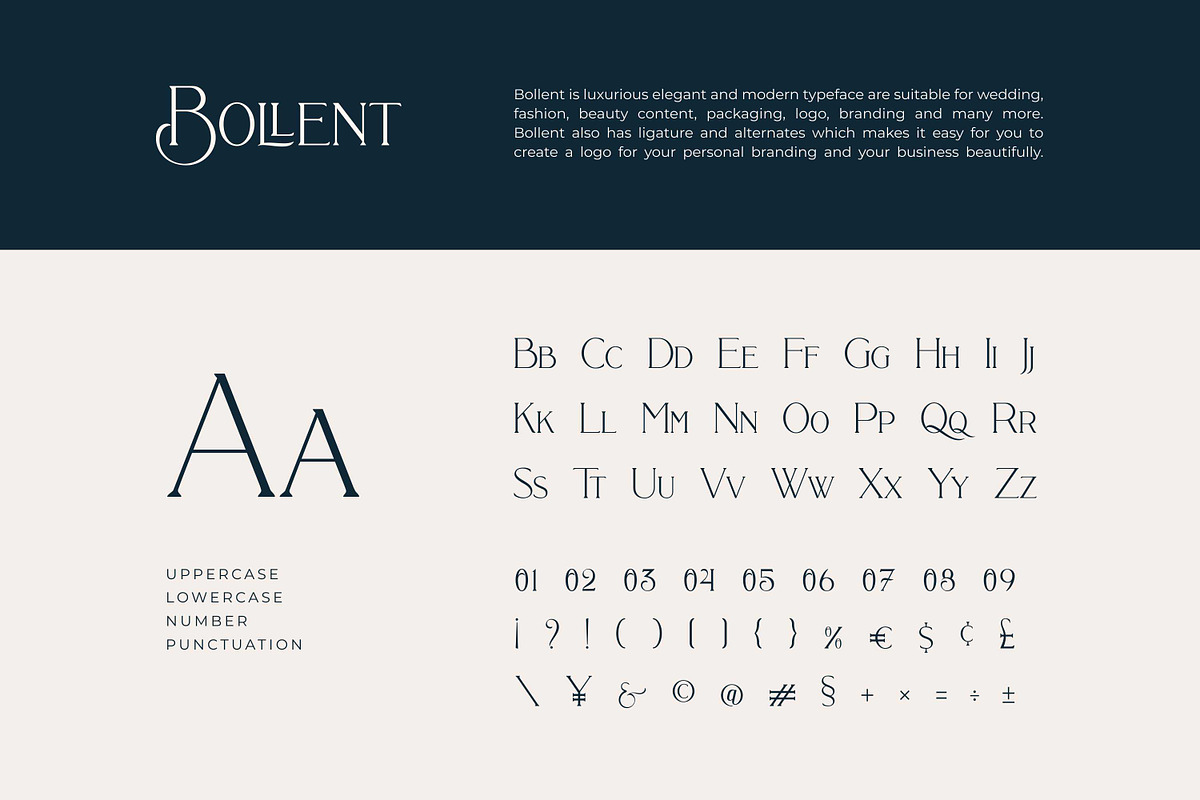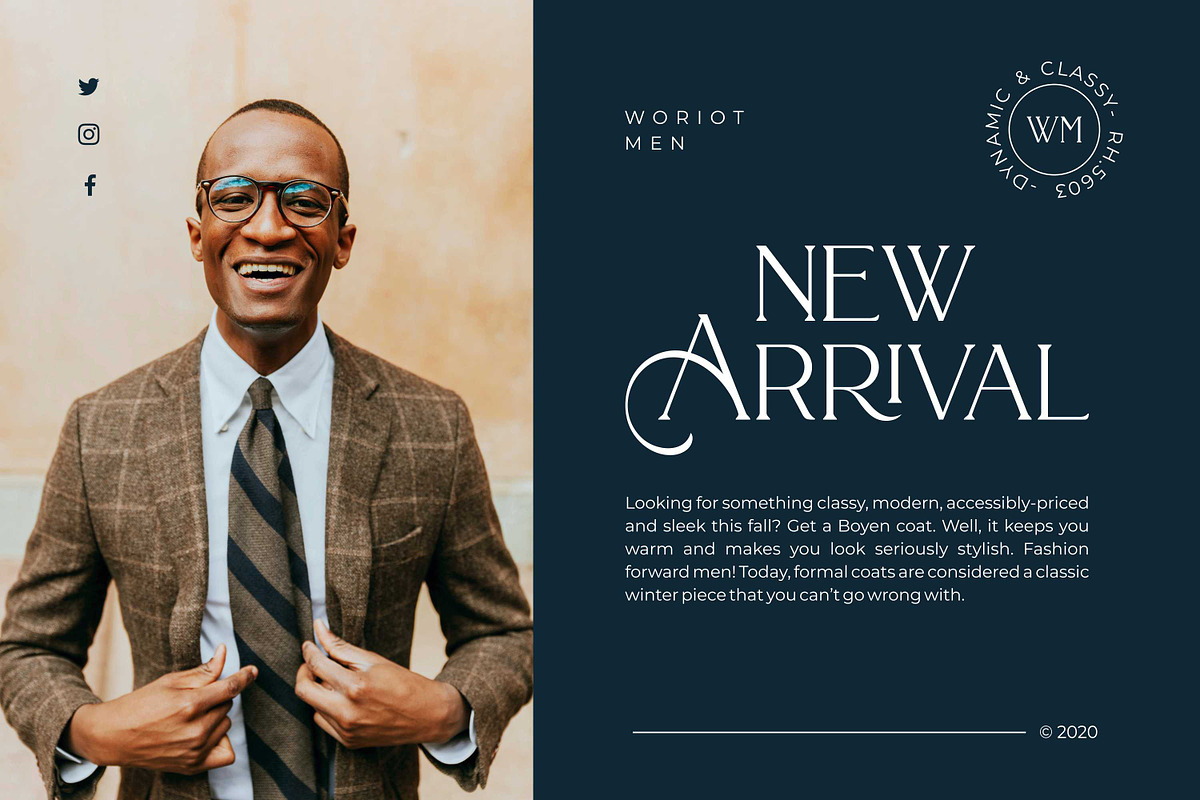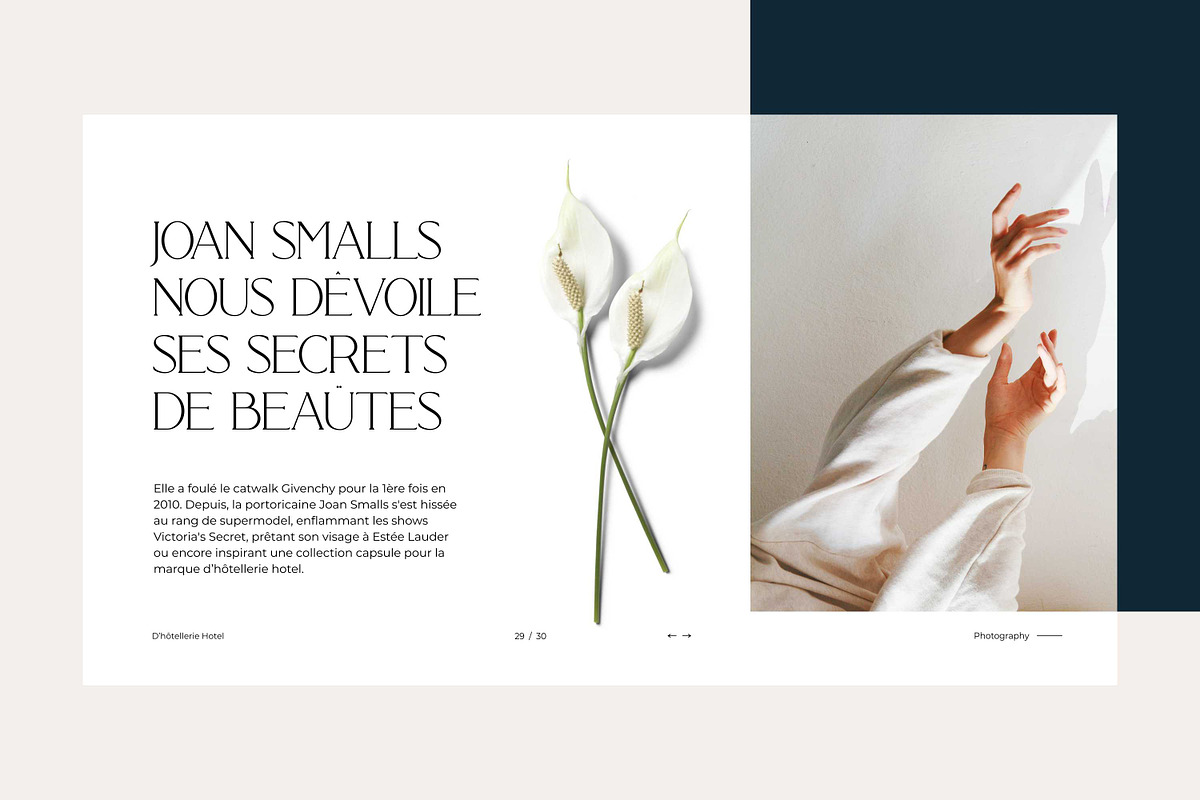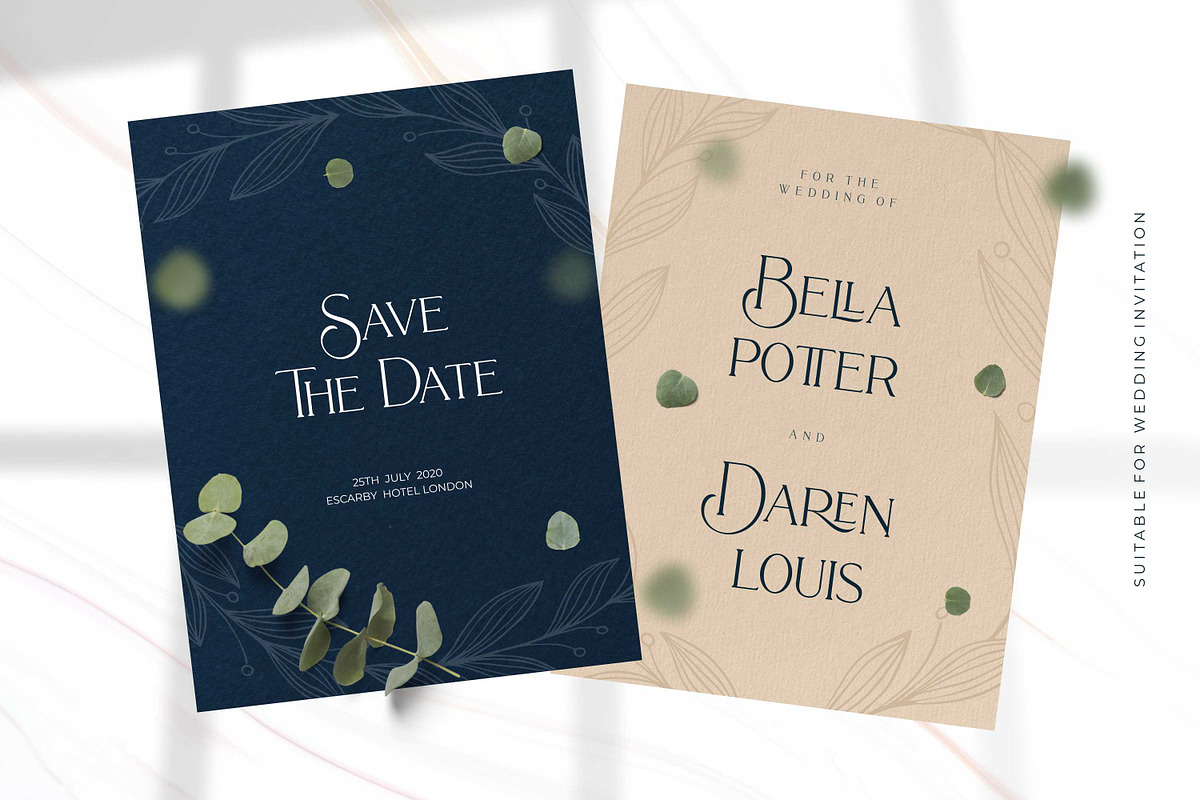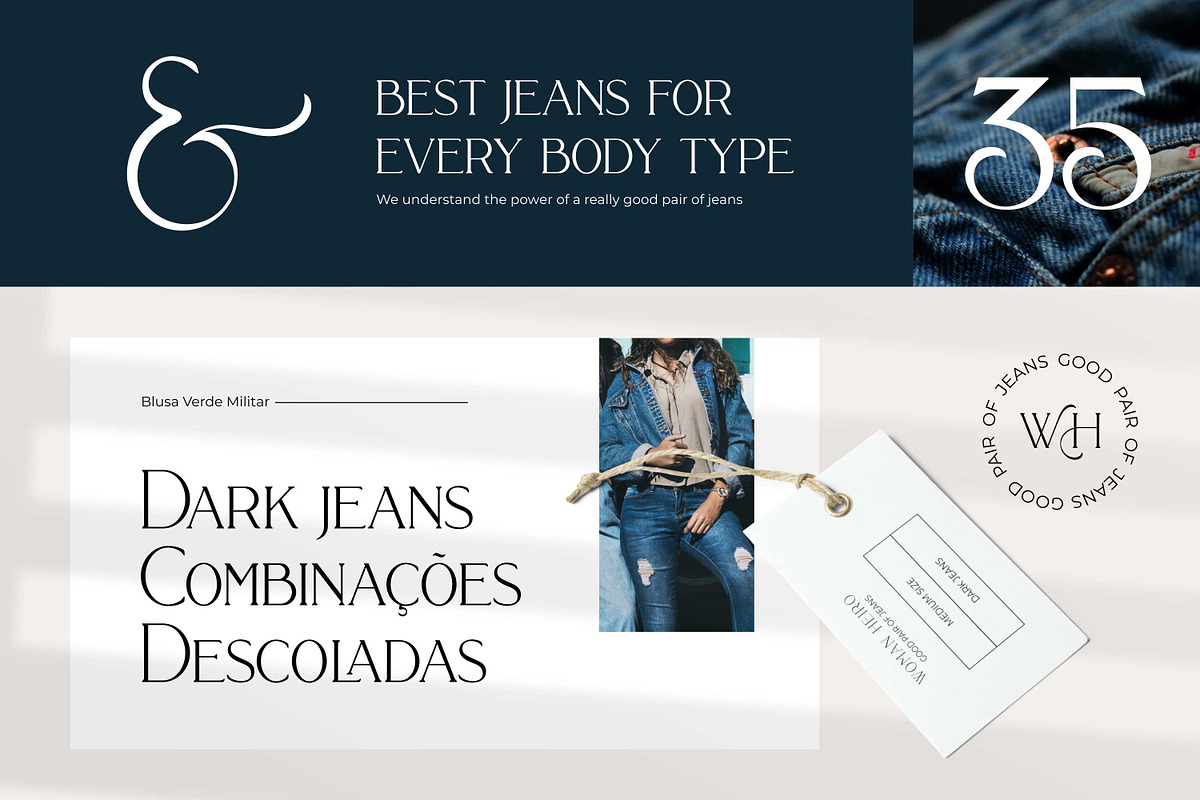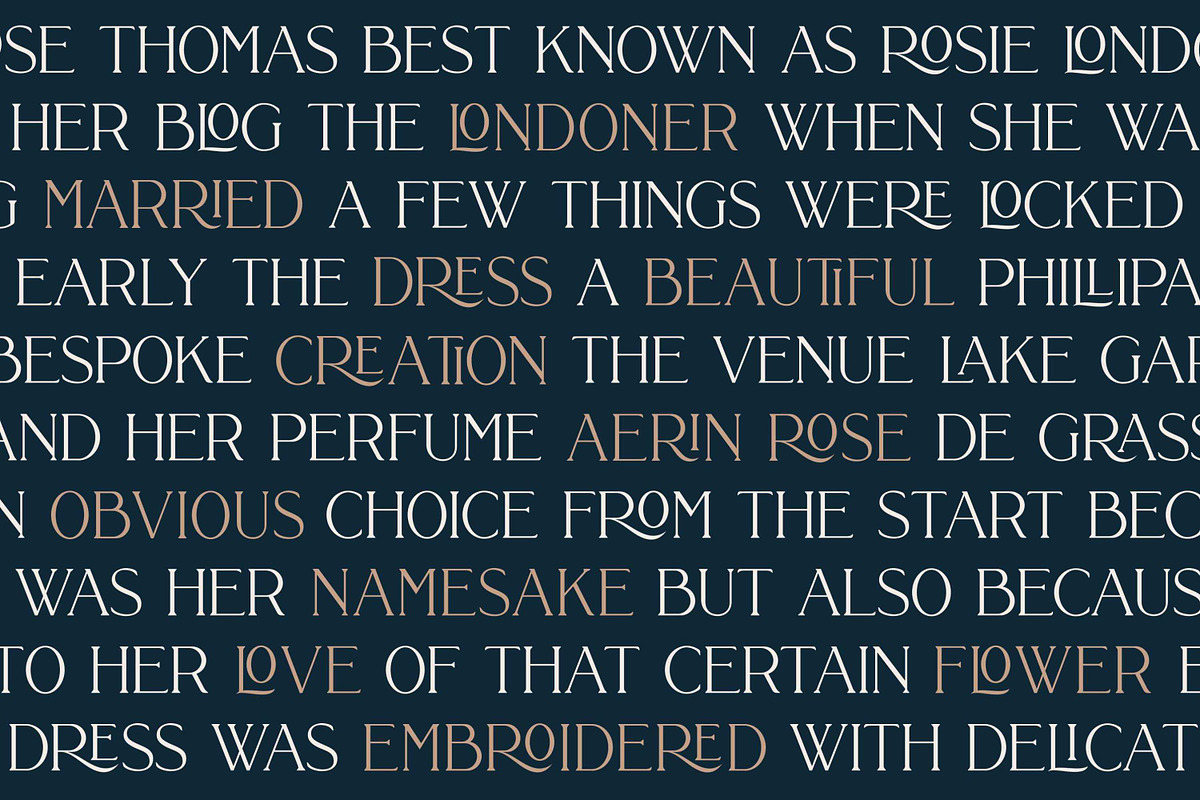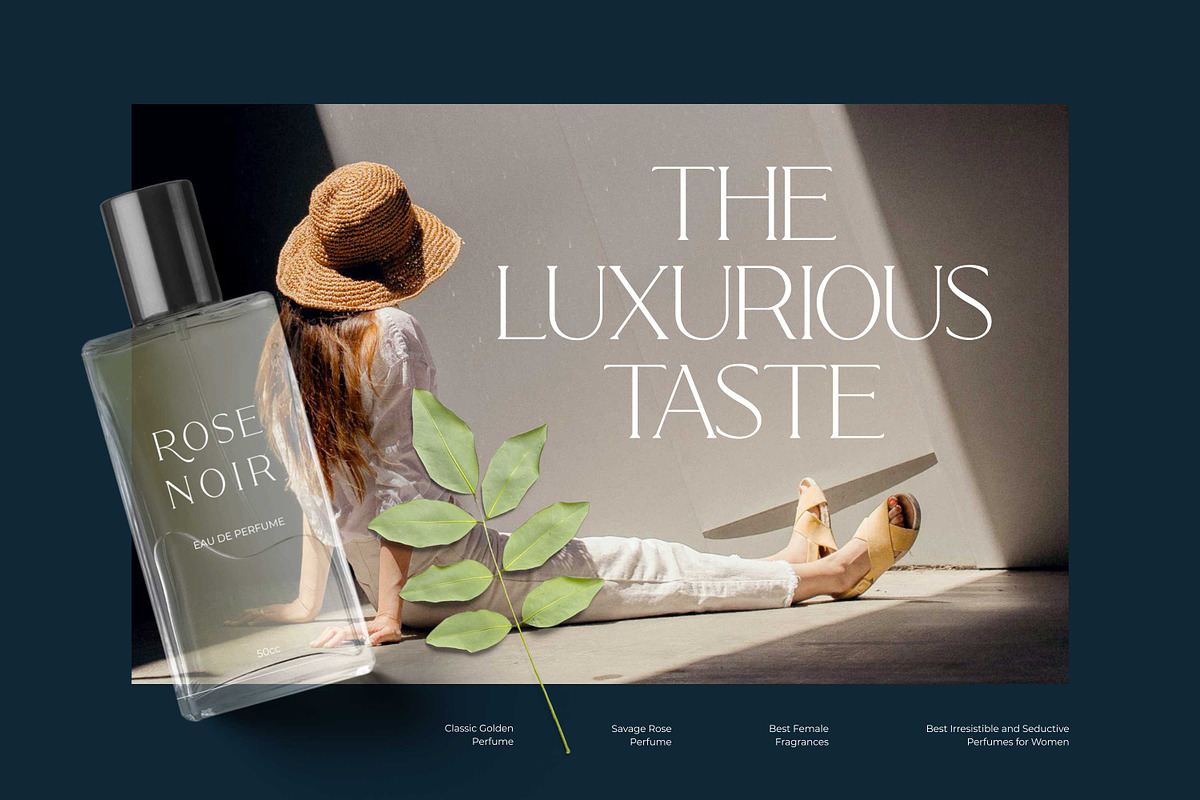
Bollent - Modern And Luxury Typeface
Bollent is luxurious elegant and modern typeface are suitable for wedding, fashion, beauty content, packaging, logo, branding and many more. Bollent also has ligature and alternates which makes it easy for you to create a logo for your personal branding and your business beautifully.
- Bollent also has ligature and alternates which makes it easy for you to create a logo for your personal branding and your business beautiful
Bollent - Modern And Luxury Typeface by Fype Co. fits naturally into Branding, posters, packaging, typography.